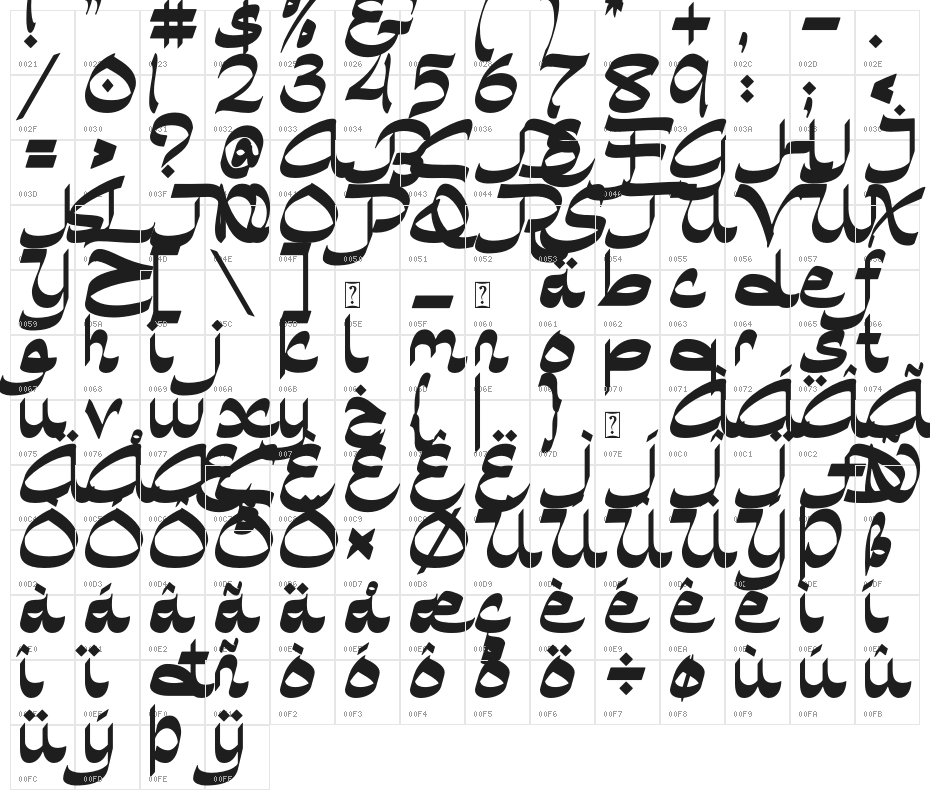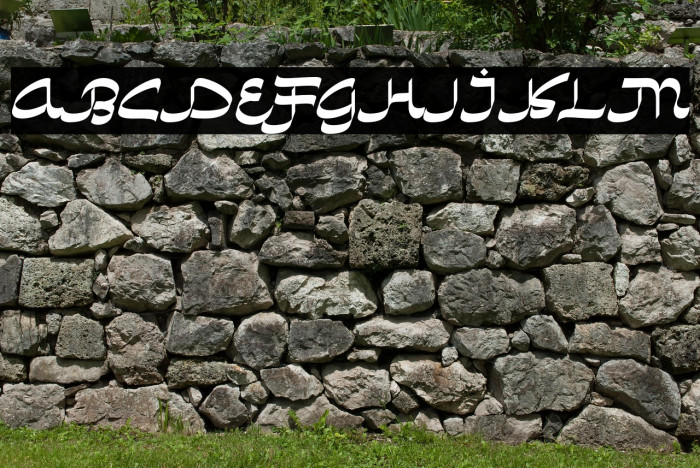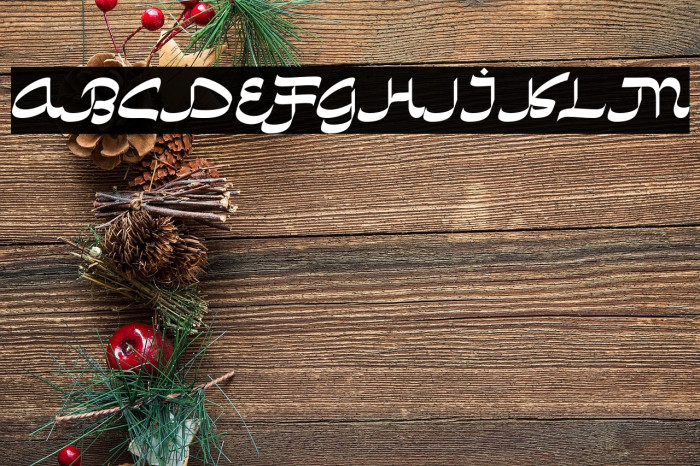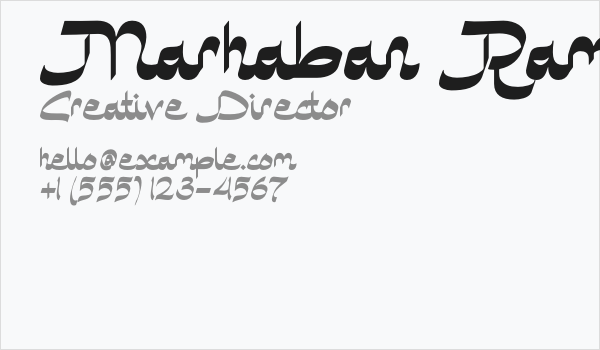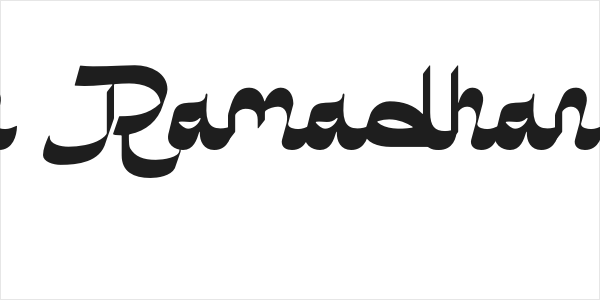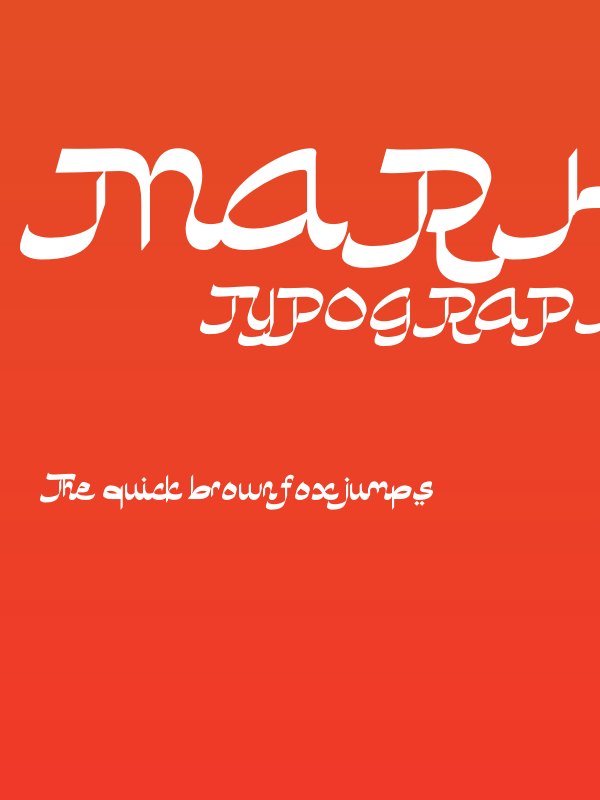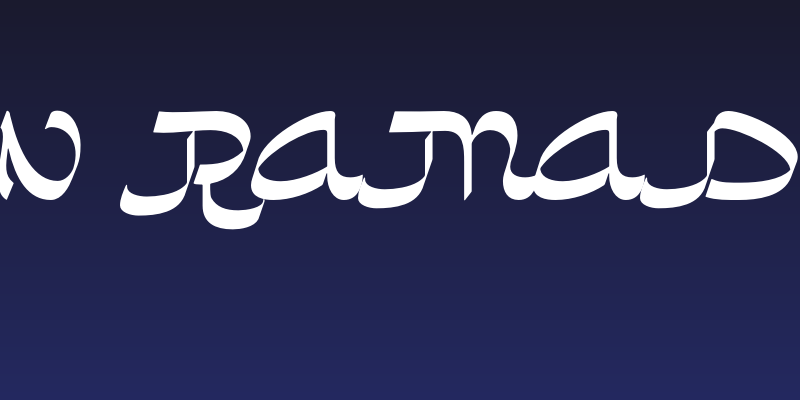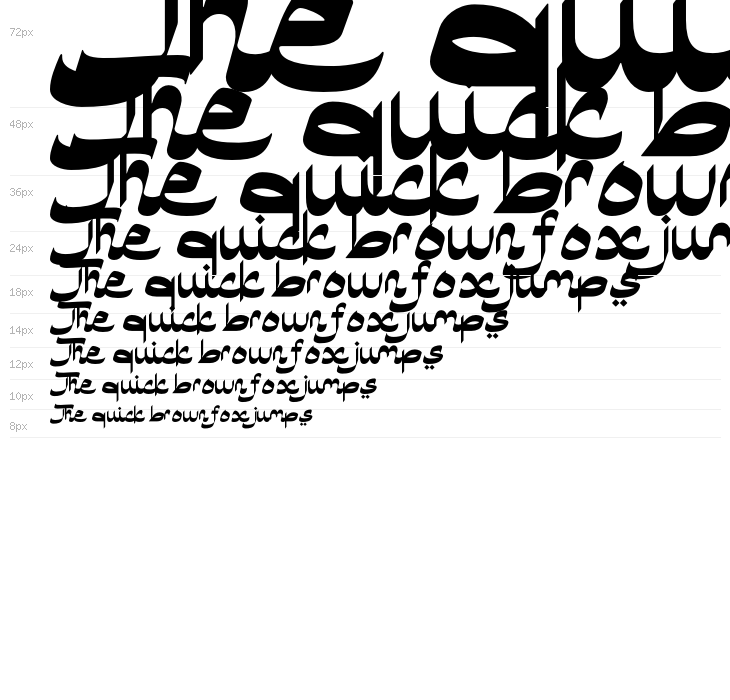
Marhaban Ramadhan DEMO Font
Marhaban Ramadhan DEMO Description
This font features a bold and expressive style with a strong calligraphic influence. The characters are fluid and dynamic, with a distinct flow that mimics traditional handwriting. The uppercase letters have a unique flair, with exaggerated curves and strokes that give them a decorative appearance. The lowercase letters maintain a consistent style, with smooth transitions and rounded forms. Numbers and special characters are designed to match the overall aesthetic, providing a cohesive look. The font's boldness and artistic flair make it suitable for creative and eye-catching designs.
| Proposed Projects | Ideal for branding, posters, invitations, and any project requiring a decorative and artistic touch. |